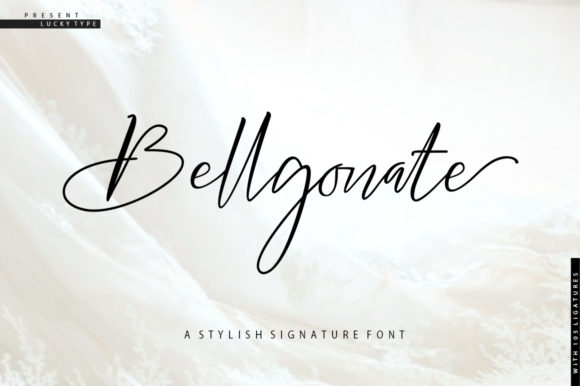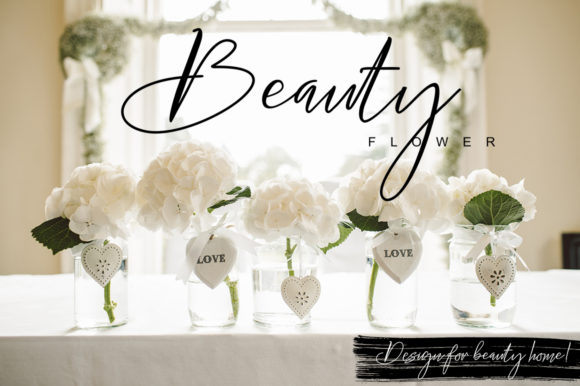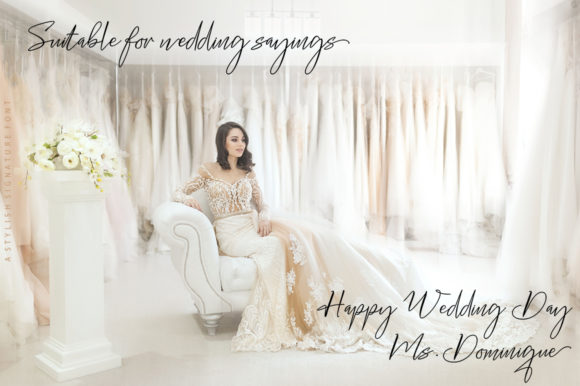
About Bellgonate Script Font
The Bellgonate is an unique signature script, with a classical touch. It’s fancy letters have an elegant italic style, while the swirls and swashes give it a modern touch.
Because of itβs elegant composition, it’s suitable for a large range of uses such as logos, branding, packaging, and much more. The only limitation is your imagination!